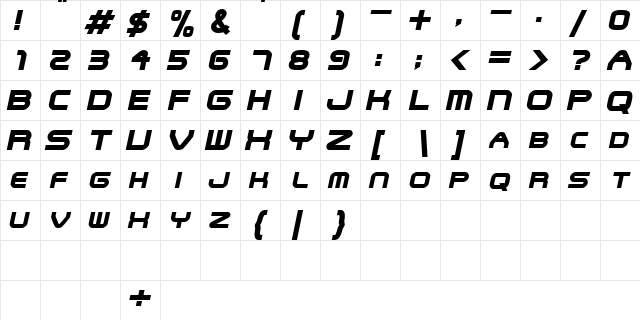
SNFU HeavyOblique
Design Context for SNFU Typeface
SNFU takes a measured approach to typography — its balanced proportions and neutral character make it a reliable workhorse for both digital and print work. The slanted form adds forward momentum and visual energy.
Pro Tip: Use SNFU for emphasis, pull quotes, and subheadings where its slanted energy can add rhythm to the layout.